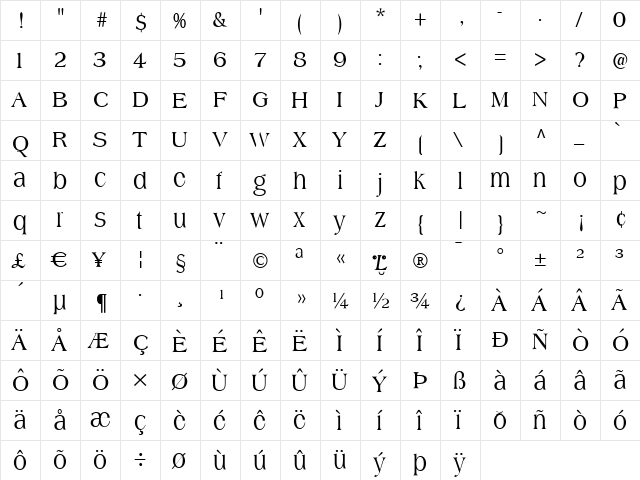
Steepiqua Regular
Design Context for Steepiqua Typeface
Steepiqua offers clean, dependable letterforms without strong stylistic allegiance, making it a practical choice for designers who need flexibility.
Pro Tip: Use Steepiqua in both headline and body roles to test its range before committing to a single application.